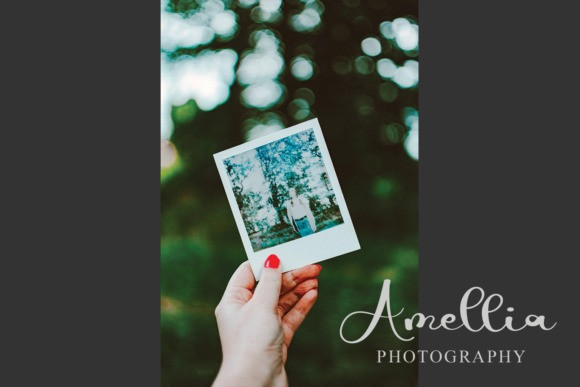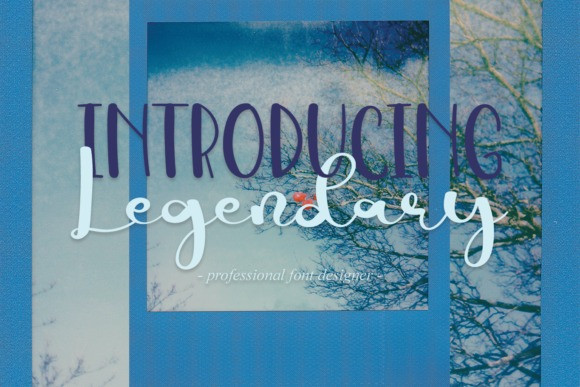
Legendary Font
Legendary Script Font is a lovely, round lettered handwritten font. It can easily be matched to an incredibly large set of projects, so add it to your creative ideas and notice how it makes them stand out!